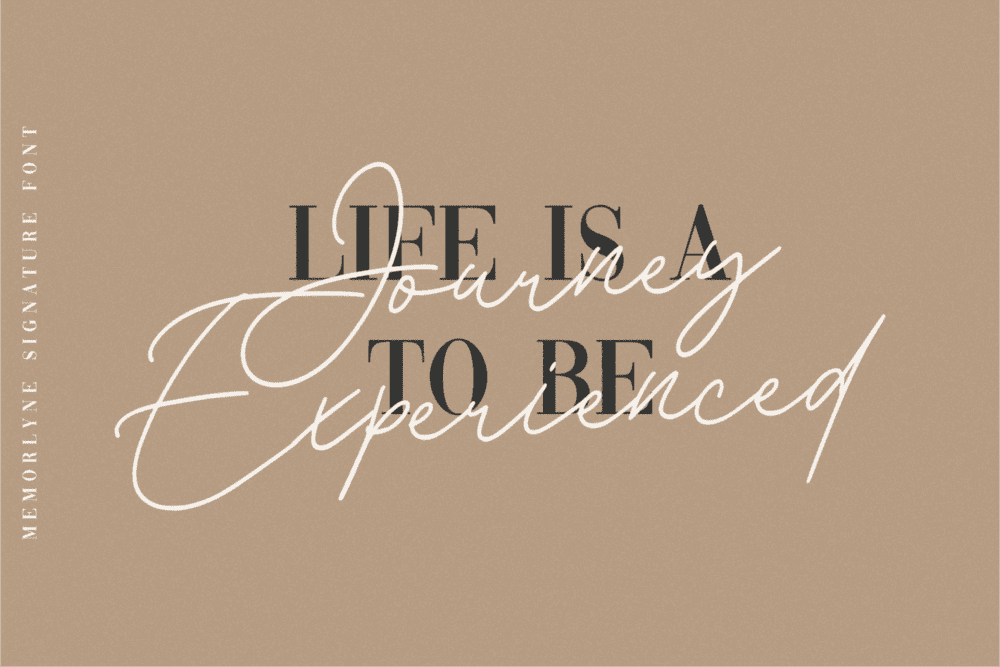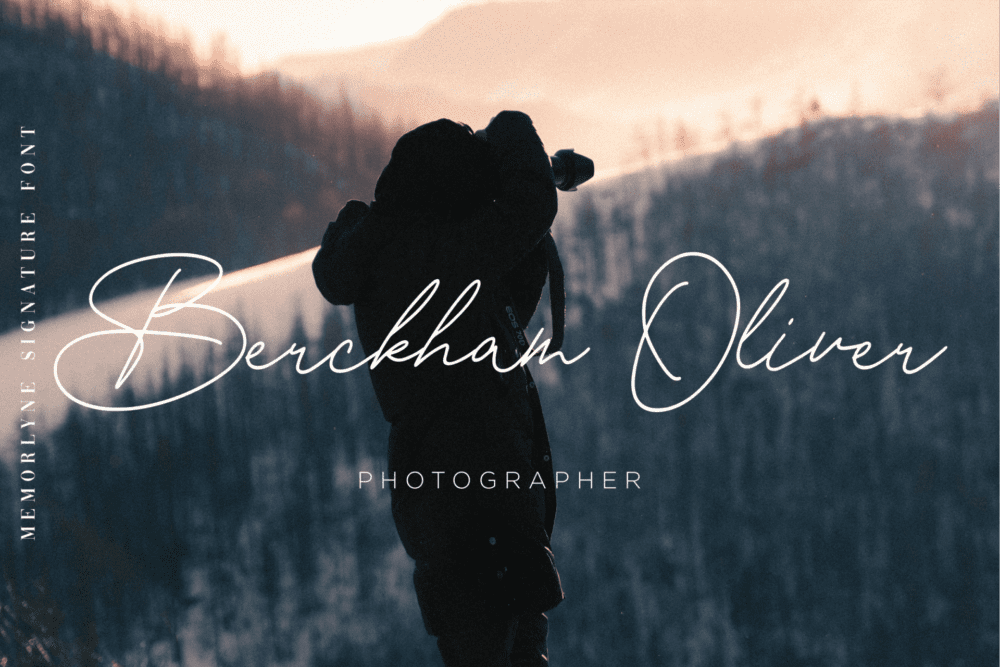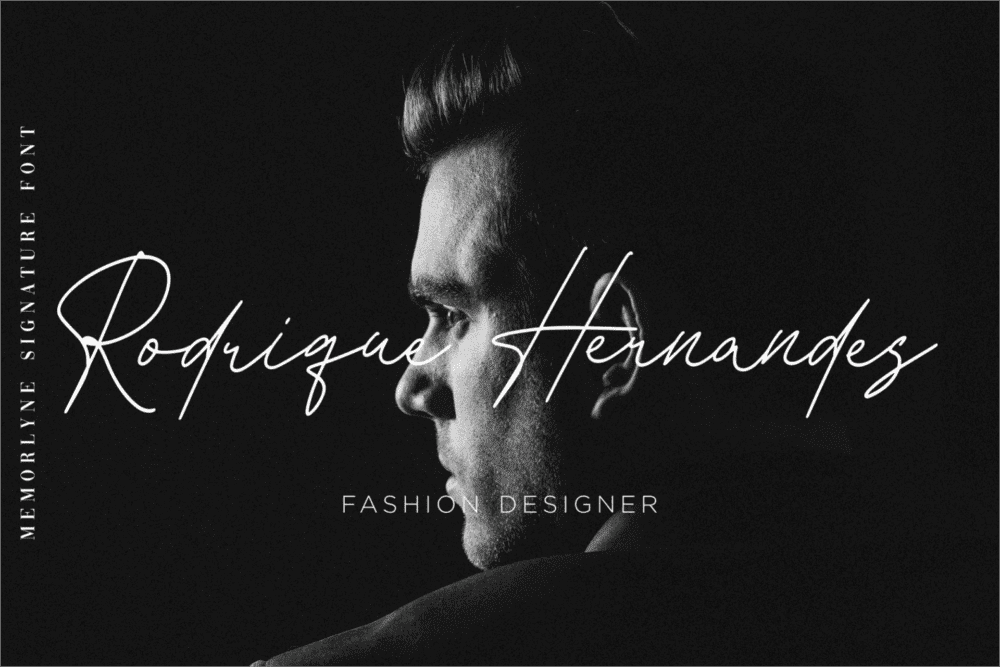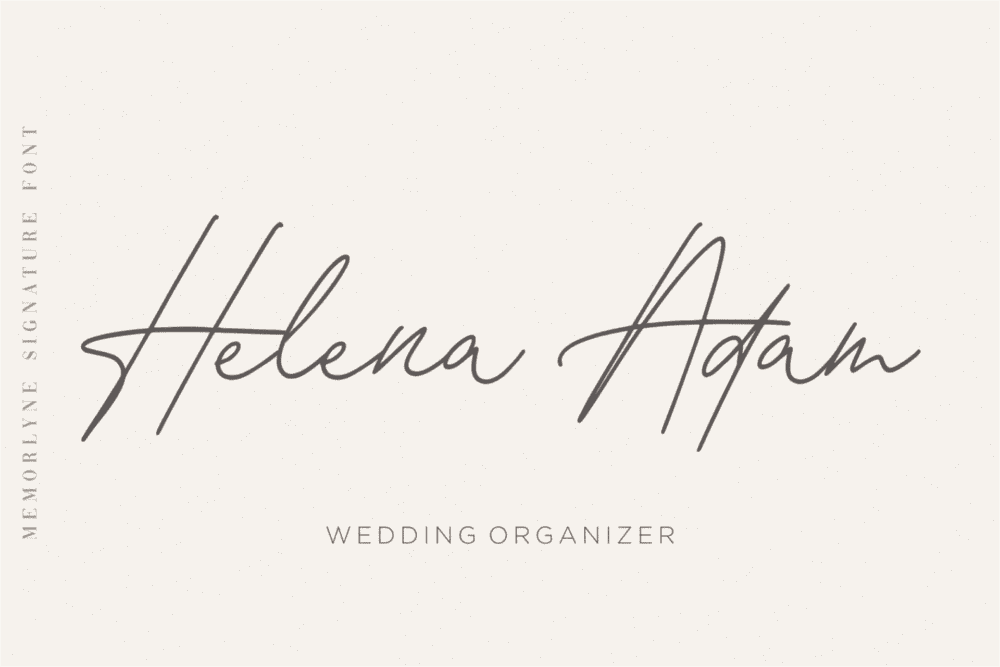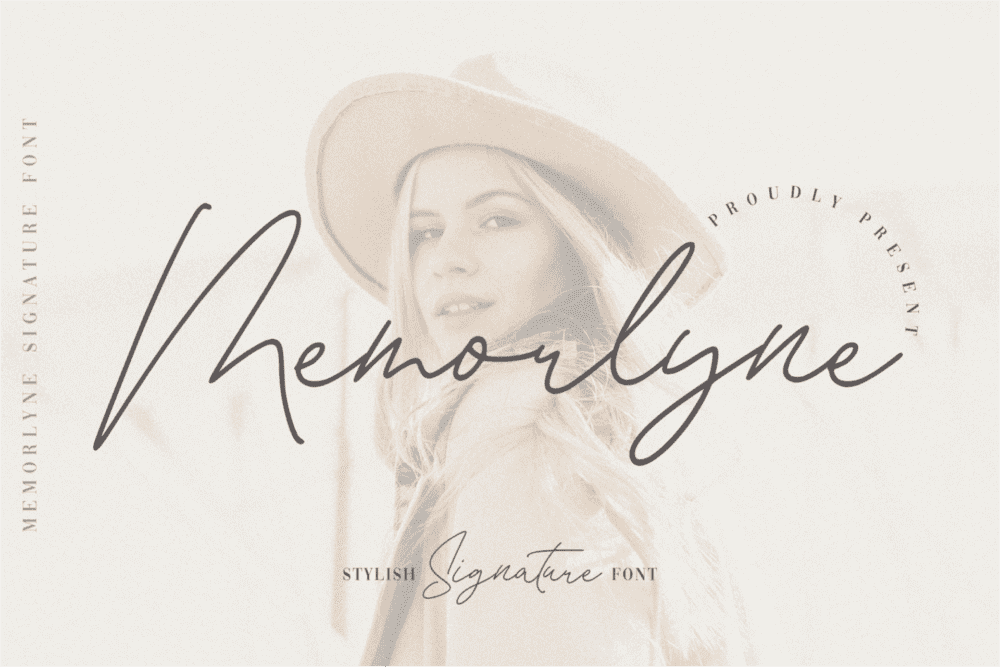
Memorlyne Font
Memorlyne is a Stylish Signature Font. Memorlyne is perfect for product packaging, branding project, megazine, social media, wedding, or just used to express words above the background.